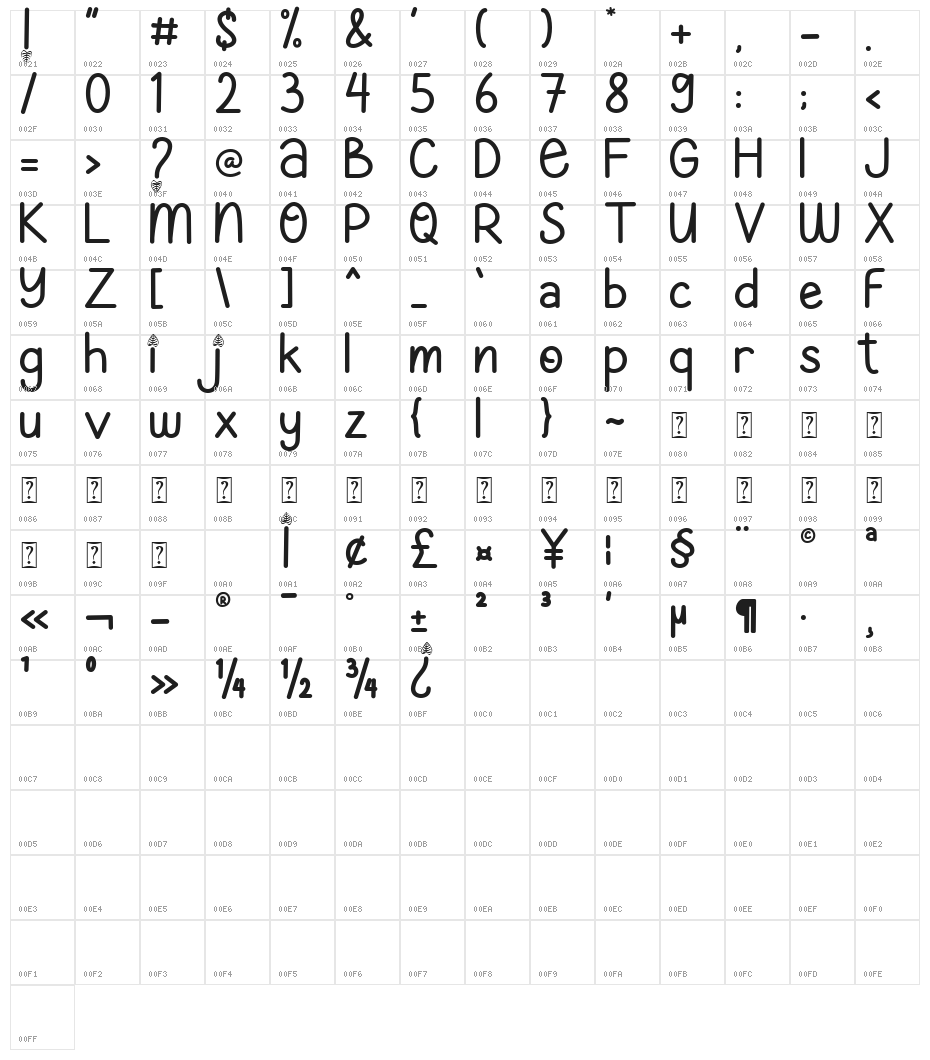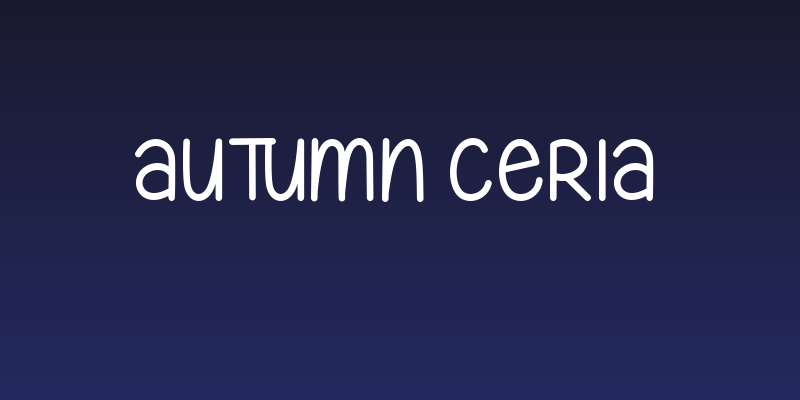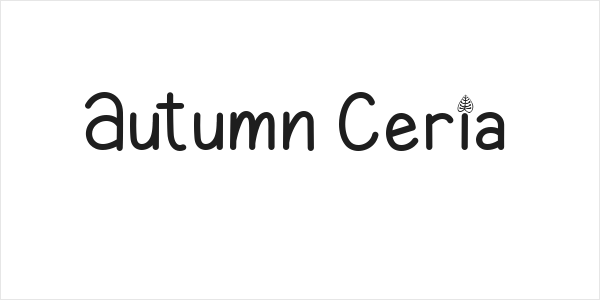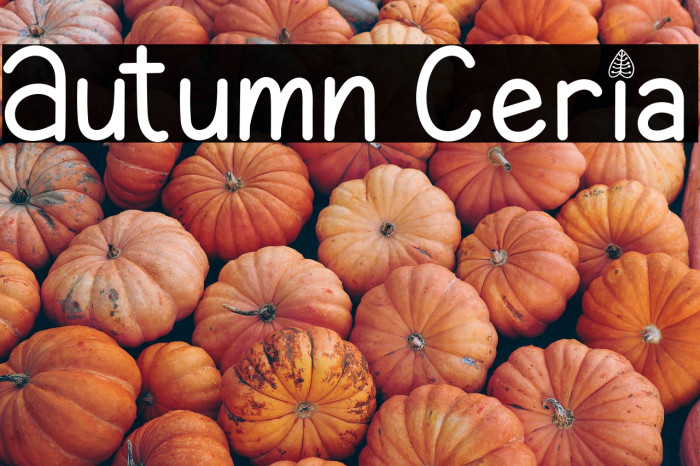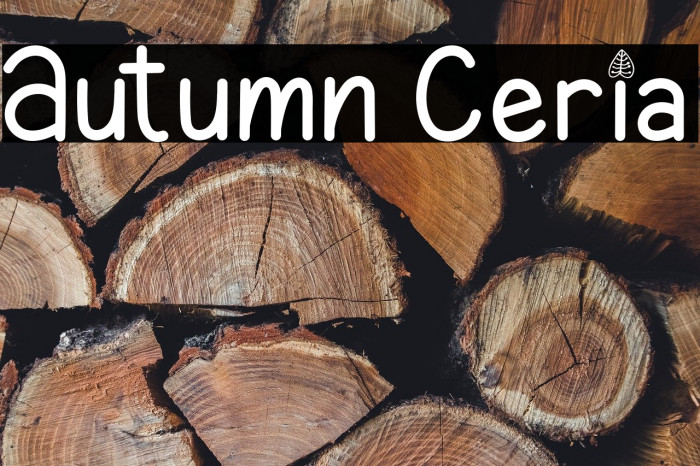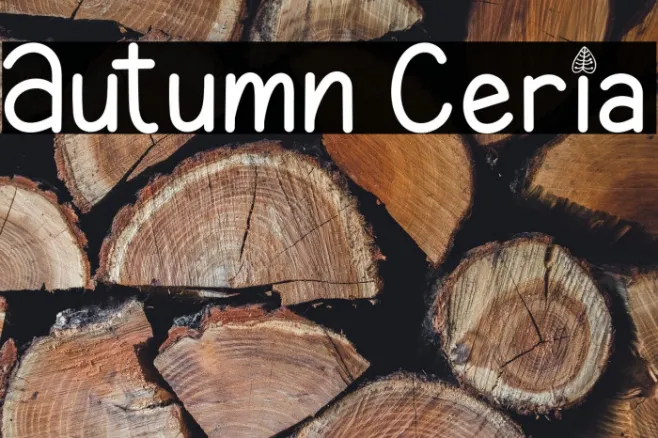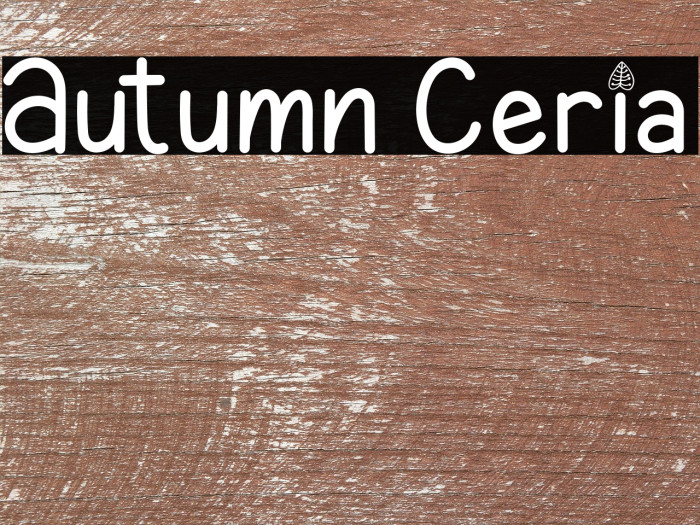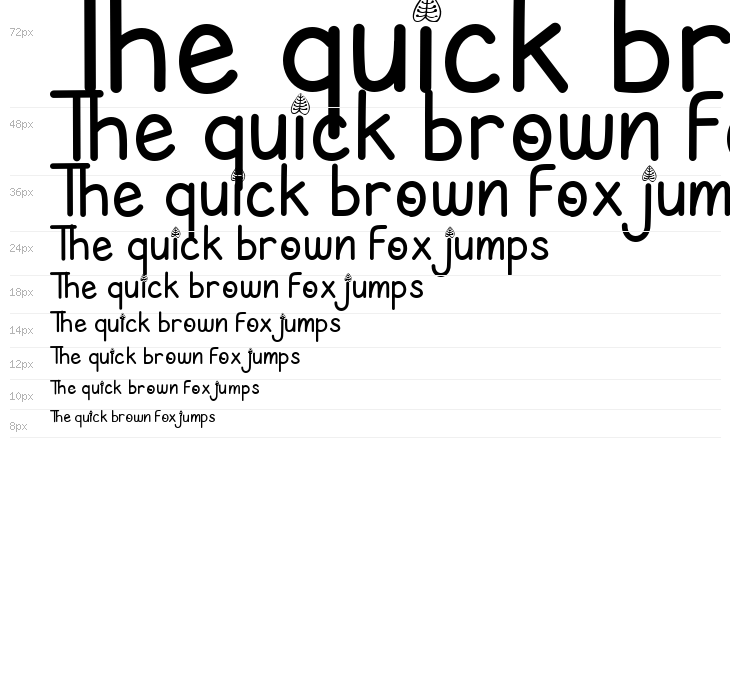
Autumn Ceria Font
Autumn Ceria Description
This playful and whimsical font features rounded edges and a hand-drawn aesthetic, giving it a friendly and approachable feel. The letters are evenly spaced with a consistent stroke width, contributing to its legibility. The uppercase and lowercase characters maintain a uniform style, with slight variations that add to the font's charm. The numerals and special characters are designed to match the overall playful theme, making it suitable for creative projects. Its informal style is perfect for designs that aim to convey warmth and friendliness.